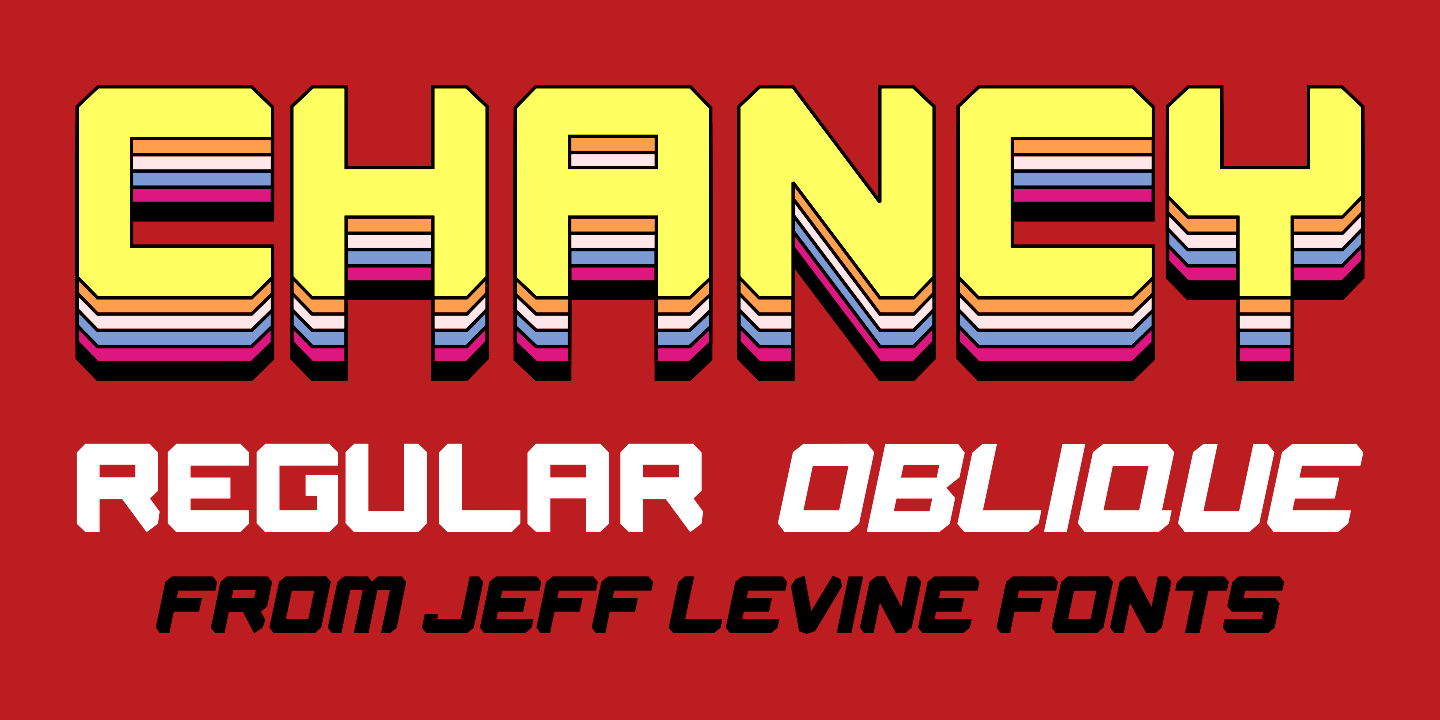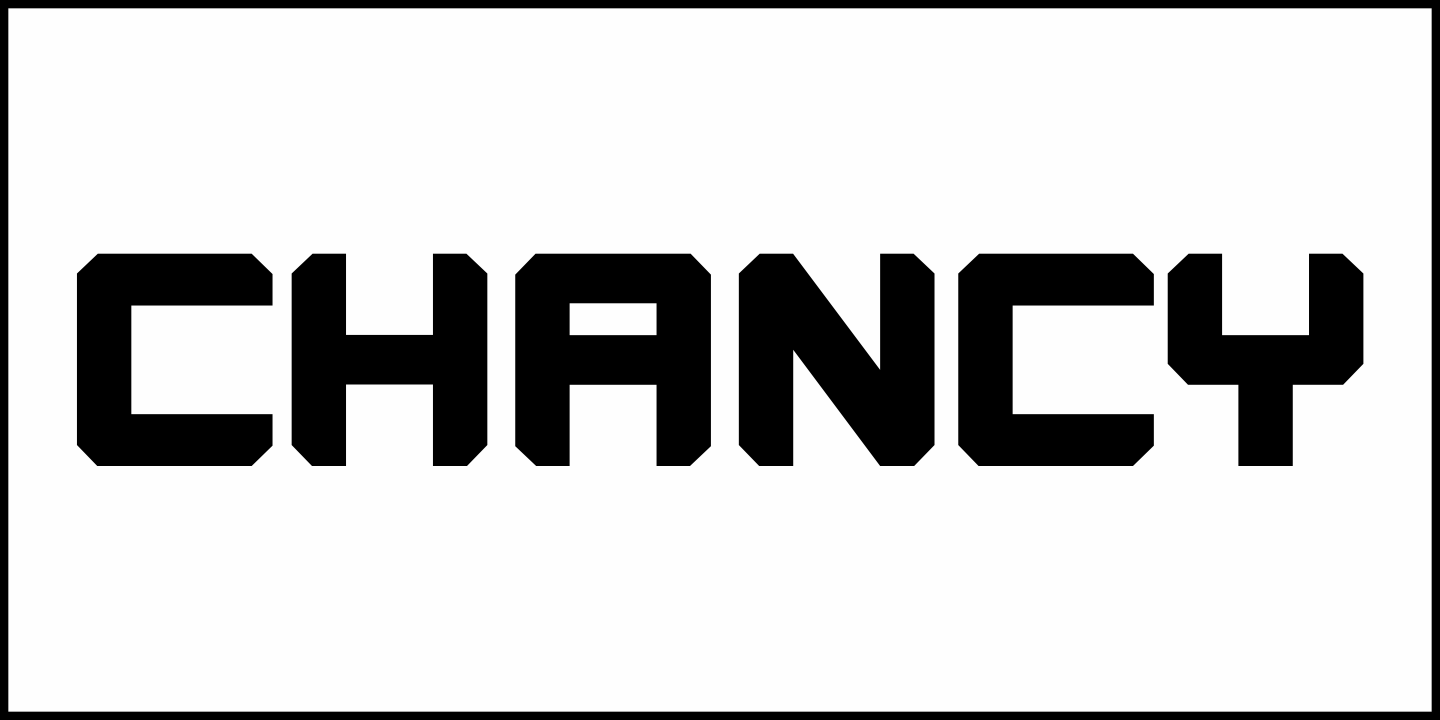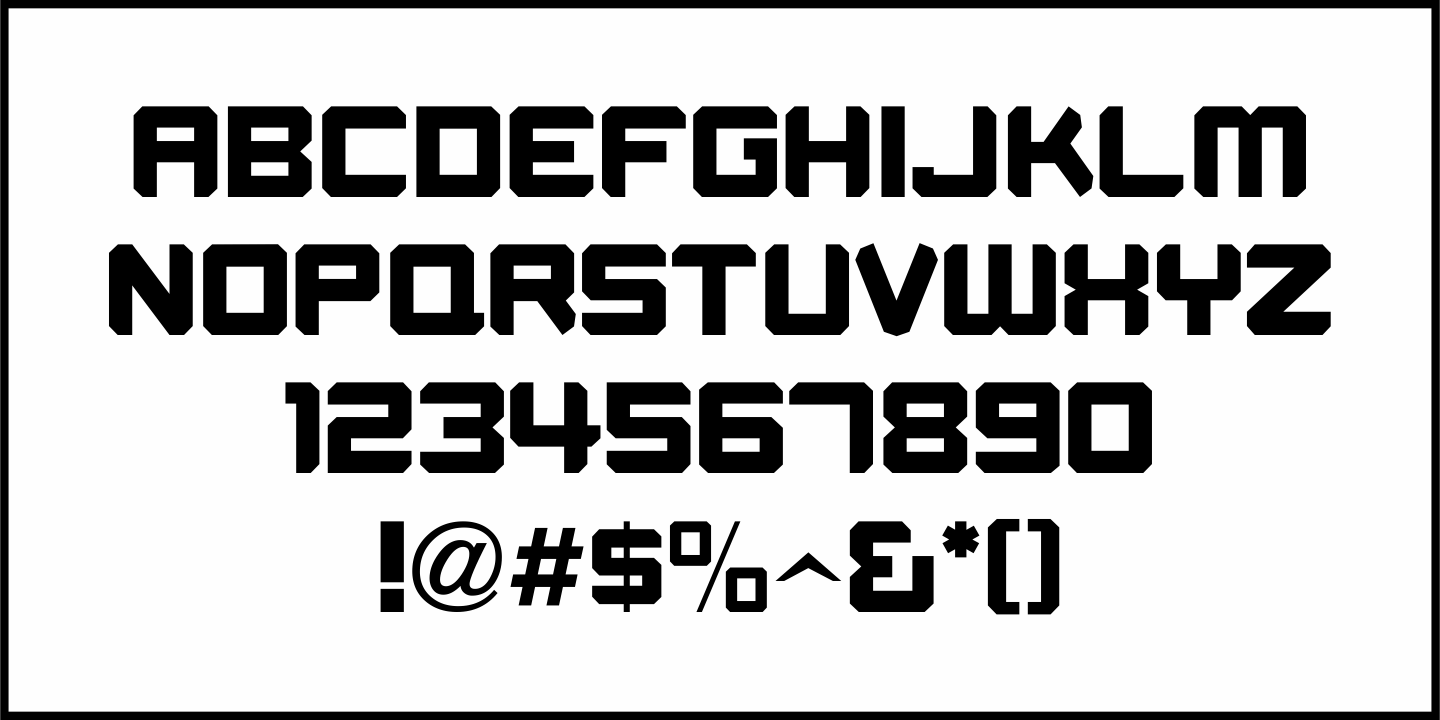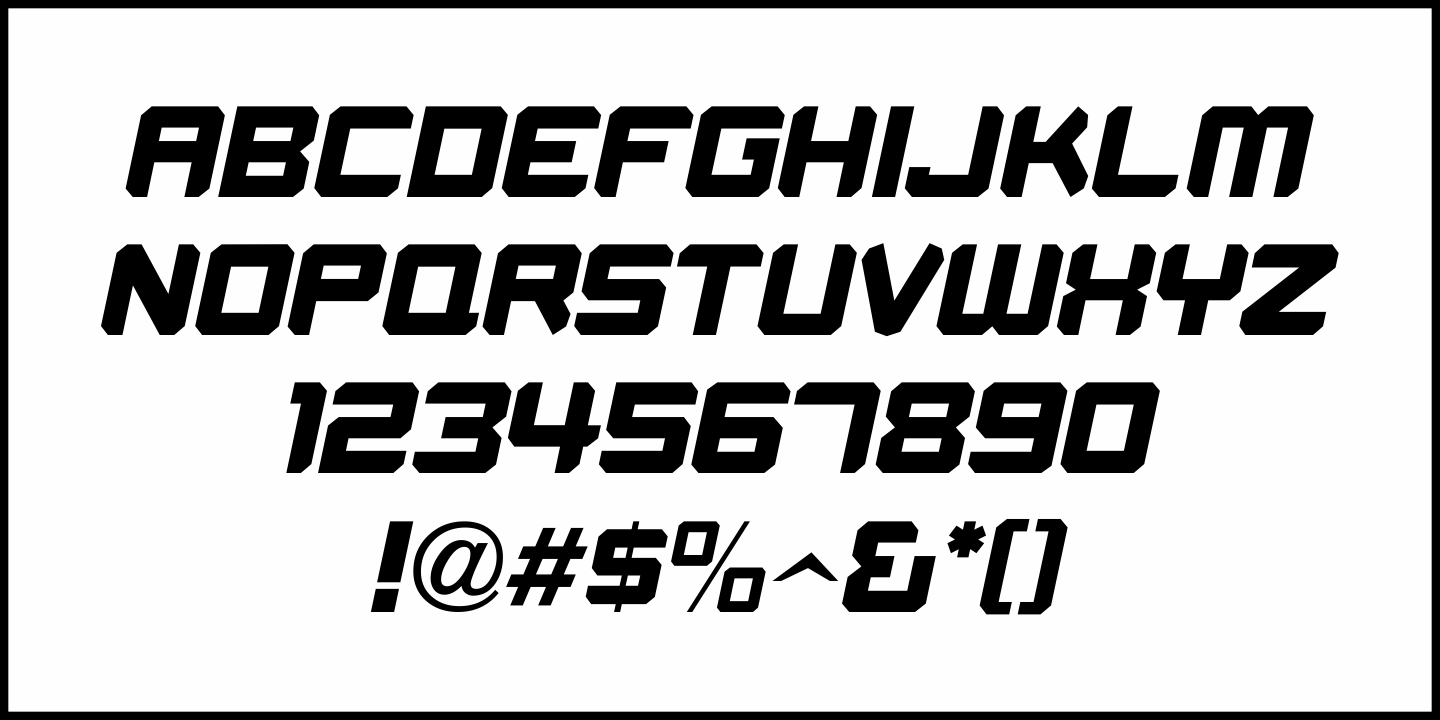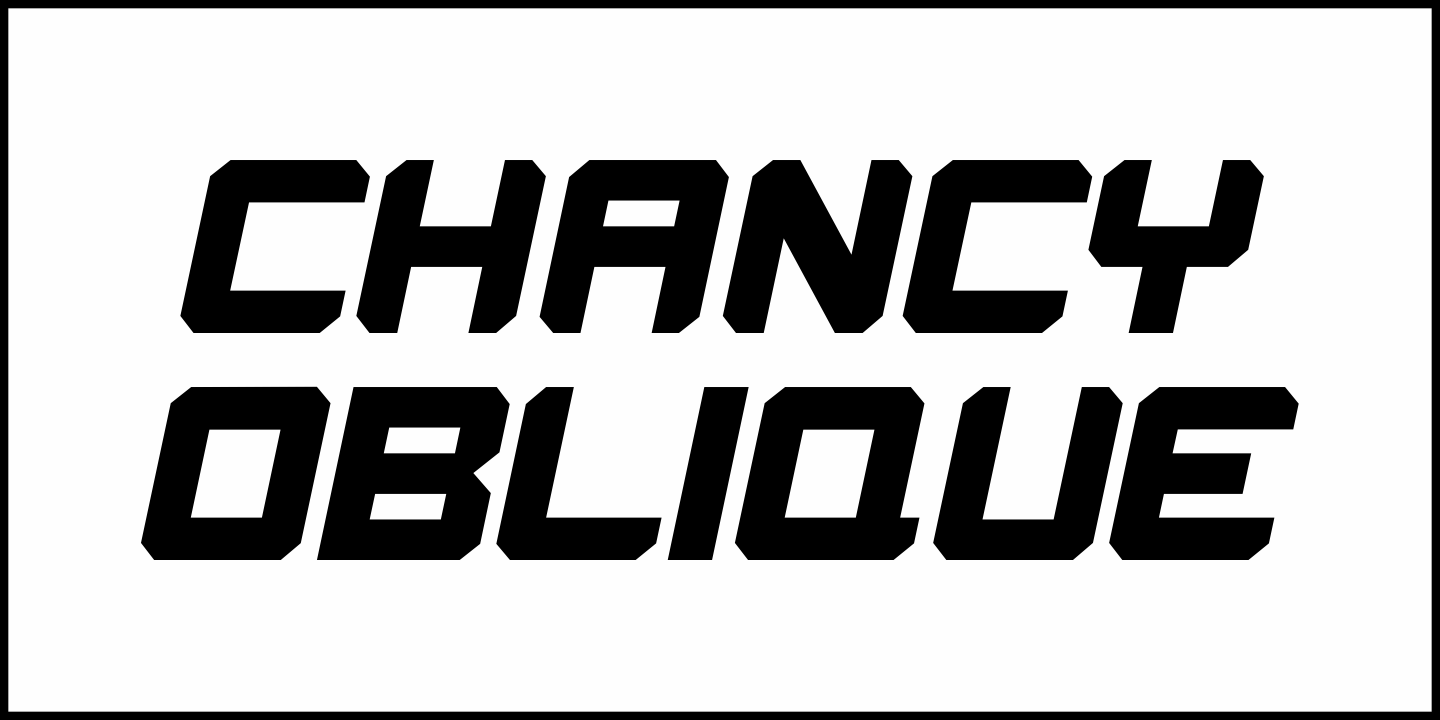
Chancy
A short-lived TV game show from 1977 called 'Second Chance” has its logo lettered in a bold, block type style with slightly chamfered corners.
This inspired Chancy JNL, which is available in both regular and oblique versions.
While 'Second Chance” only lasted one season, the show was re-tooled - and debuted in 1983 as 'Press Your Luck” – which ran until 1986.
Chancy JNL Regular by Jeff Levine Fonts